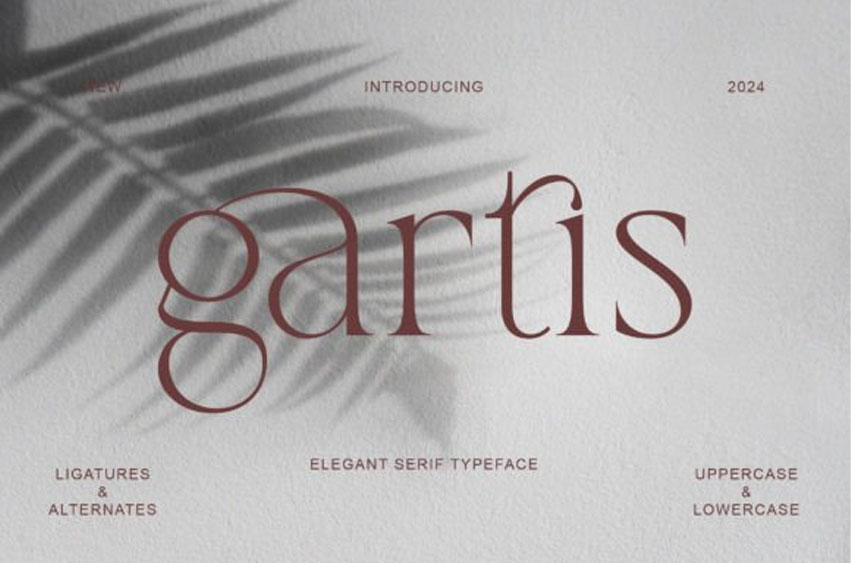
Gartis Font
Gartis Font An elegant and modern serif typeface. With its contemporary and charming appearance, Gartis brings a luxurious and clean style to your projects such as websites, modern logos, branding identities, social media quotes, wedding stationery, and various other needs!